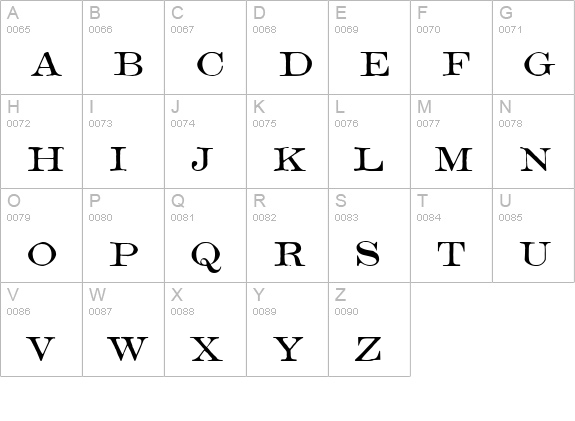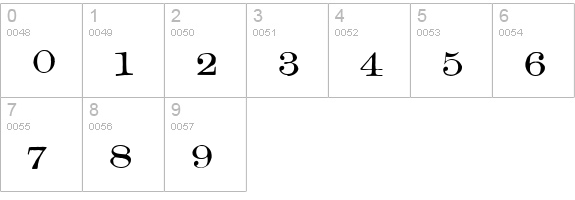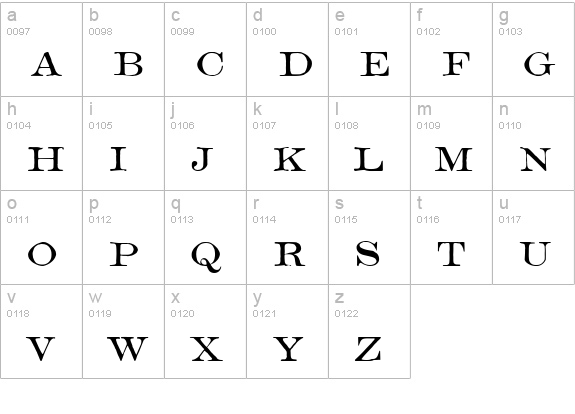
Mercantile Card HPLHS Font Details
Introducing Mercantile Card HPLHS font – a versatile and stylish typeface that brings a unique charm to your design projects. This font is perfect for adding a touch of vintage elegance to your creations, whether you're working on invitations, posters, logos, or any other design project. What sets Mercantile Card HPLHS font apart is its classic yet modern aesthetic, making it a versatile choice for various design needs. The intricate details and ornate flourishes of this font add a sophisticated flair, while still maintaining readability and legibility. The best part? Mercantile Card HPLHS font is available for free download at FontsMarket.com. So, you can enhance your designs with this beautiful font without breaking the bank. Don't miss out on the opportunity to add Mercantile Card HPLHS font to your font collection today!